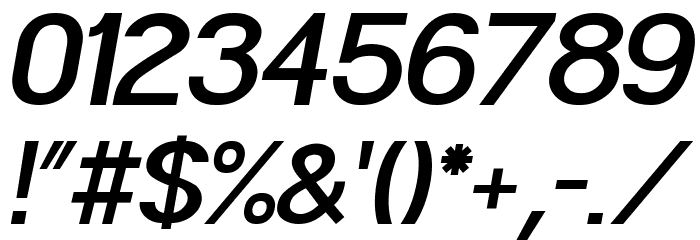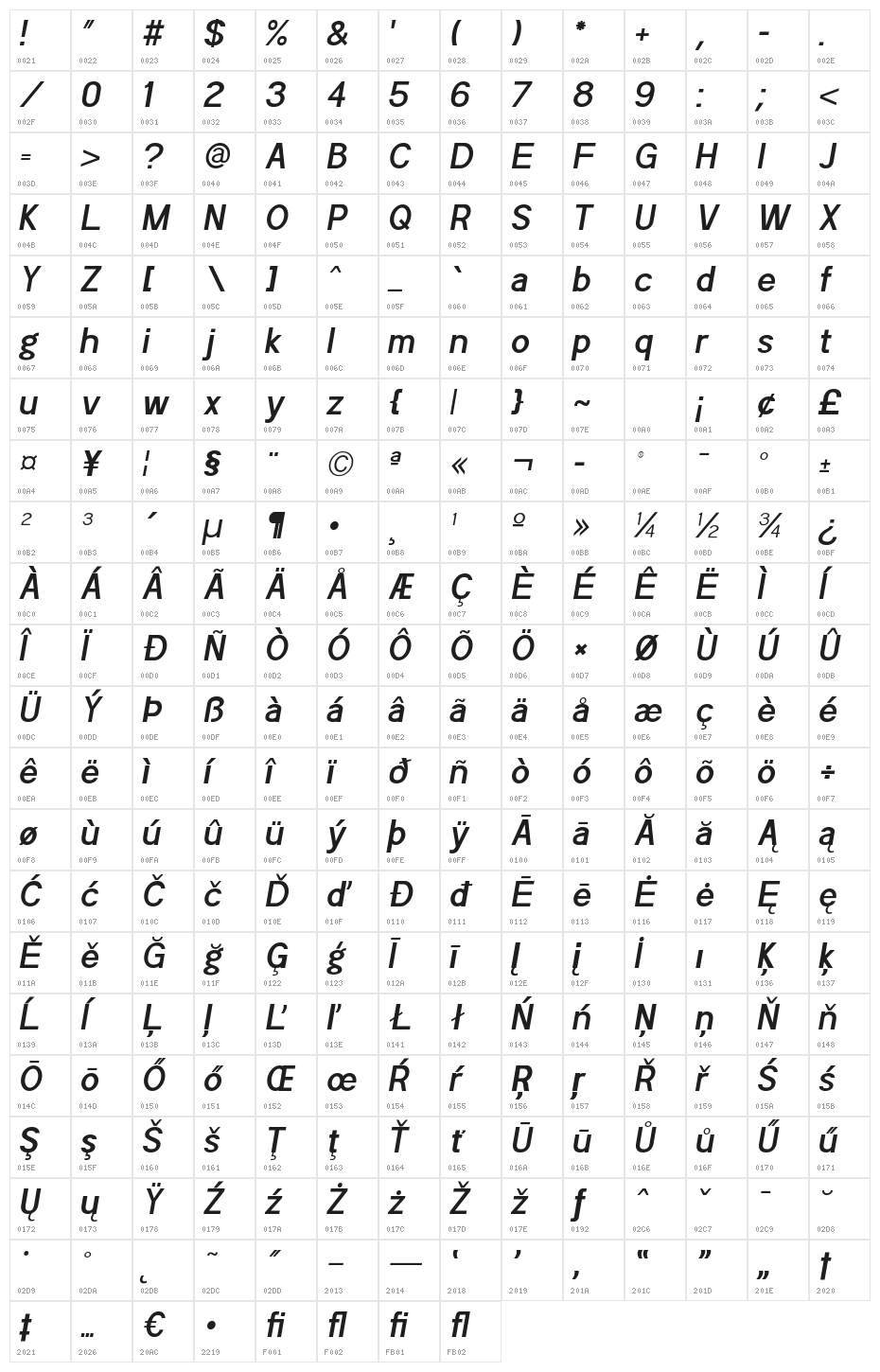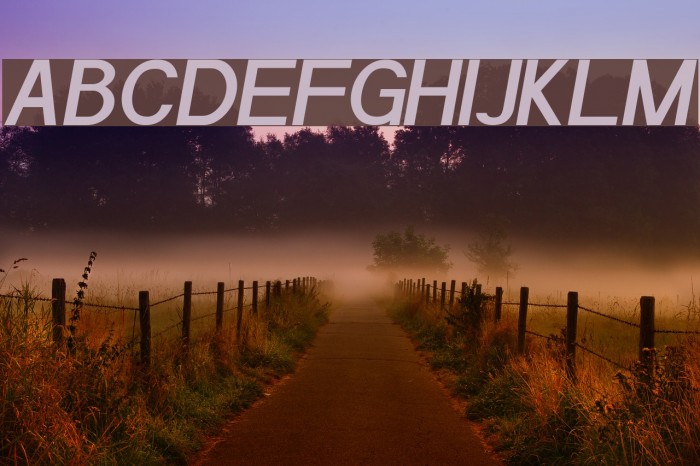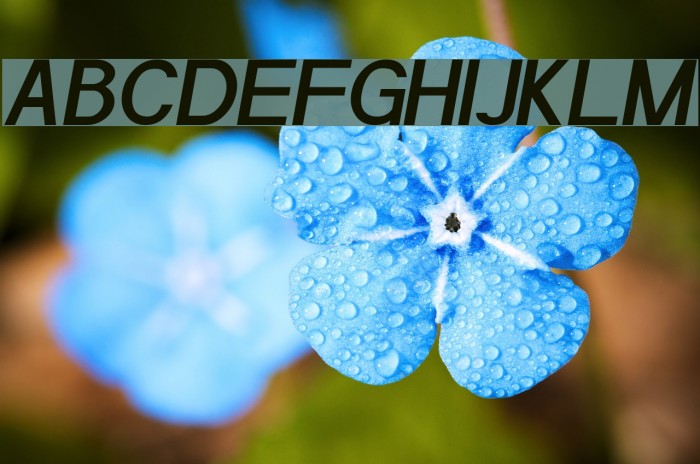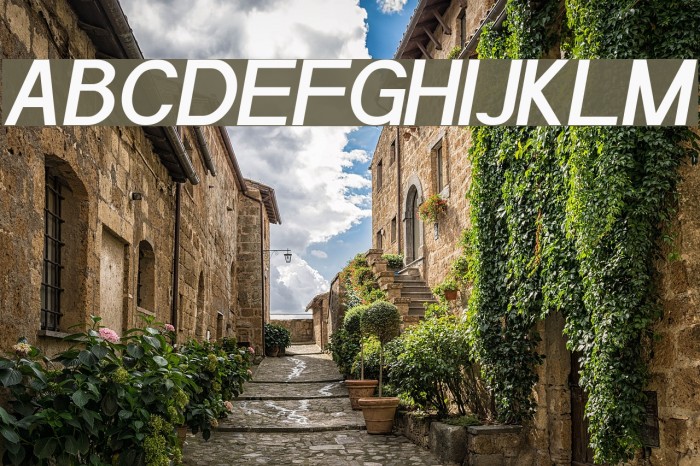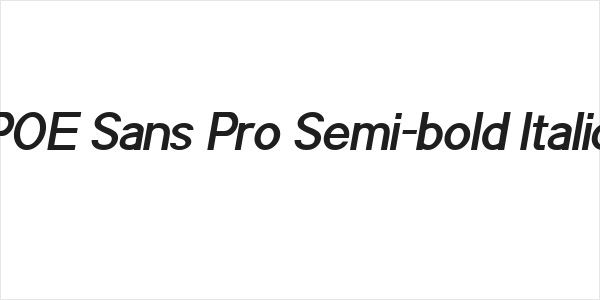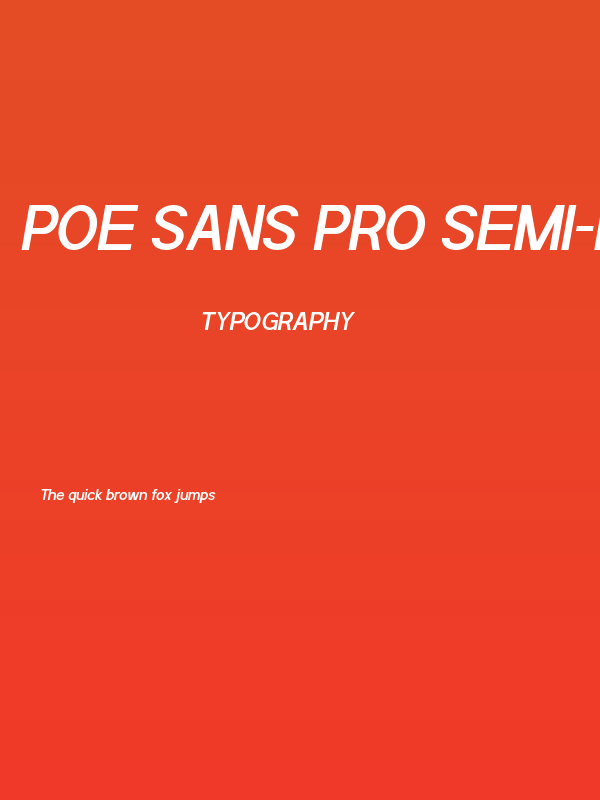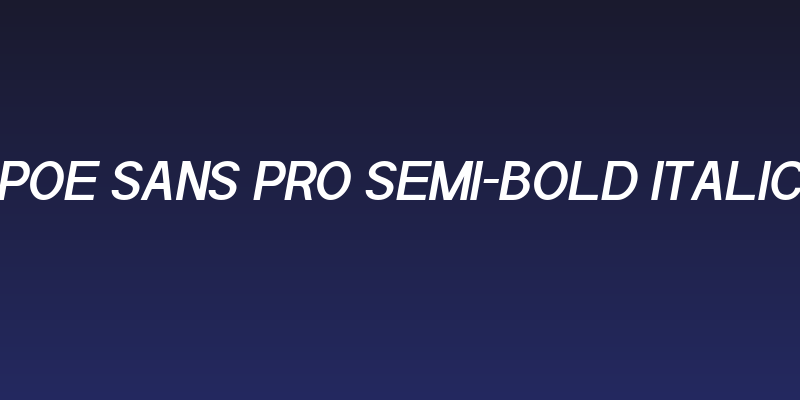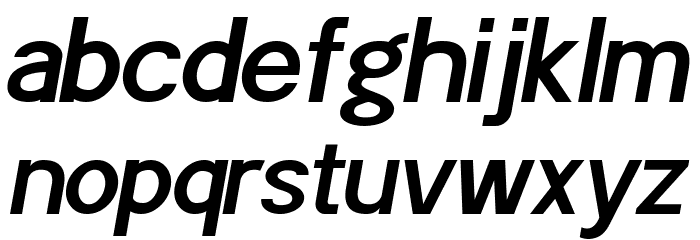
POE Sans Pro Semi-bold Italic Font
POE Sans Pro Semi-bold Italic Description
This typeface exhibits a clean and modern sans-serif style with a semi-bold weight, providing a strong yet elegant appearance. The italic slant adds a dynamic and forward-moving feel, making it suitable for contemporary designs. The characters are well-proportioned, with smooth curves and a consistent stroke width that enhances readability. The numerals and special characters maintain the same stylistic features, ensuring uniformity across different text elements. This font is versatile, offering a professional look that can be adapted to various design contexts.